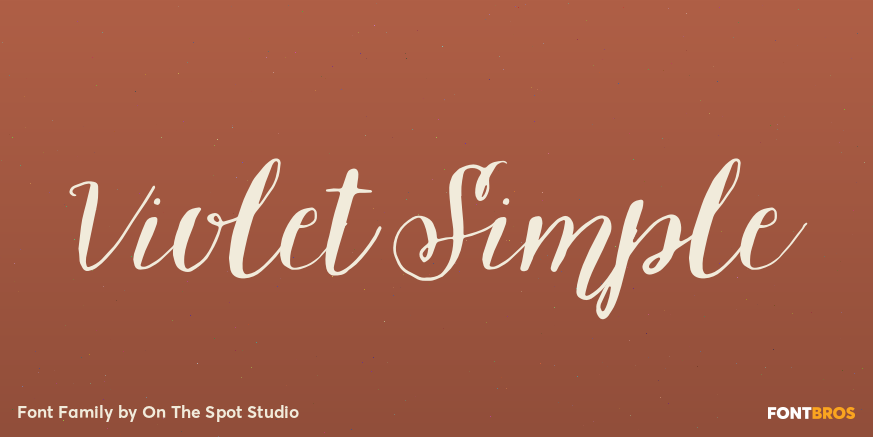
HomeFont BrosContemporaryViolet Simple ContemporaryScripts: CasualScripts: FormalHandwritten Violet Simple FacebookXPinterestWhatsApp 1 of 1 About Violet Simple is just that: SIMPLE. Please note this pretty font is uppercase and lowercase alphabet only, no punctuation or numbers.  DOWNLOAD NOW People also explored Scribbler Pen Font She Dance Slight Font Magoline Font Angelic Matilda Font Waikiki Doodles Botanical Forest Font Rejoice Funny Font Behind the Scene Font 274 0 TagsViolet Simple Font Previous articleRosieNext articleDimitri Swank LEAVE A REPLY Cancel reply Comment: Please enter your comment! Name:* Please enter your name here Email:* You have entered an incorrect email address! Please enter your email address here Website: Save my name, email, and website in this browser for the next time I comment. Personal Use Free Pretender Personal Use Free Read more about this font Love Ya Personal Use Free Read more about this font BD Algebra Personal Use Free Read more about this font Monogram Calligraphy Personal Use Free Read more about this font BLOG How to Install and Use Fonts on Windows, macOS, and Web Projects How to Install and Use Fonts on Windows, macOS, and Web Projects Fonts are a crucial part of design and branding. Whether you’re designing a... How to Cut Any Font on Cricut: Convert a Font to SVG (Free) Using Fonts in Digital Marketing: Tips to Strengthen Your Brand Identity Best Fonts for T-Shirt Design – Top 2025 Picks